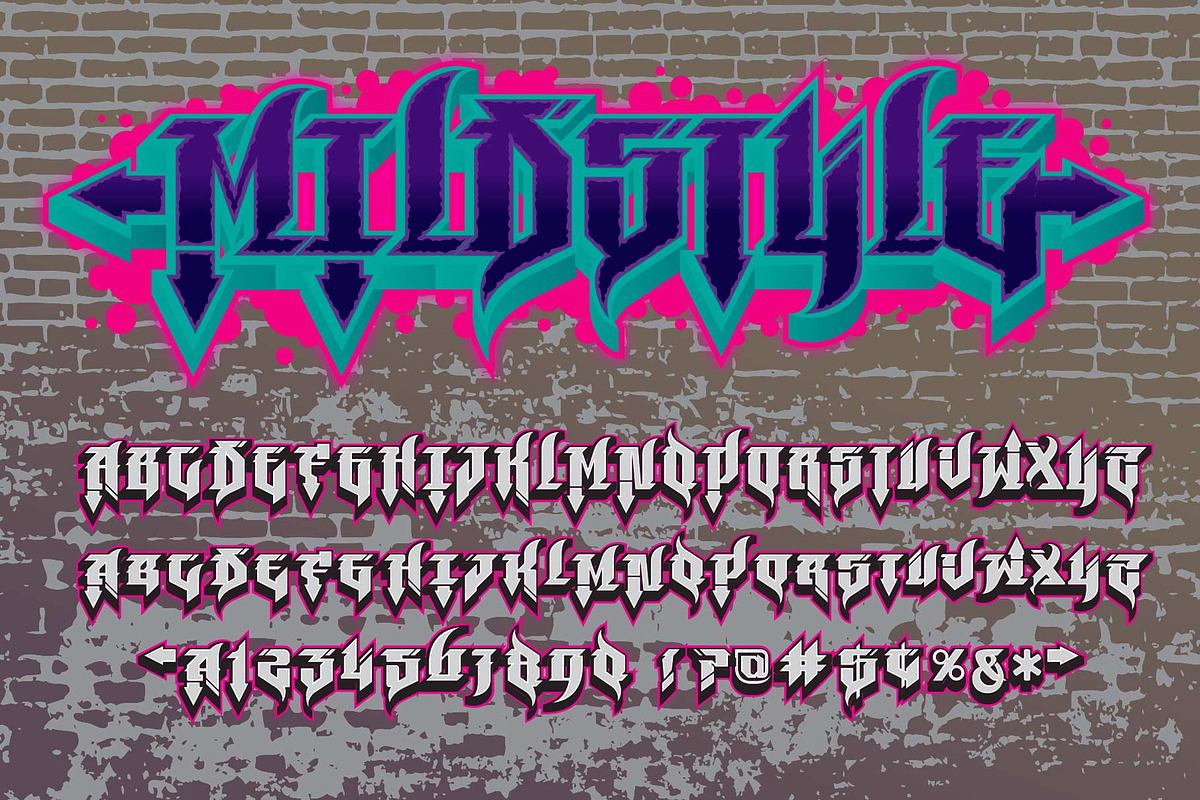
Please note that you must purchase this font for commercial use. You can download MildStyle – Graffiti Fonts for free, strictly for personal testing purposes only. MildStyle is a bold and energetic graffiti font that combines classic street art aesthetics with a cleaner, more controlled flow—perfect for designers who want an urban edge without losing legibility. With its hand-drawn curves, stylish swashes, and layered personality, MildStyle Graffiti Fonts Free Download is ideal for streetwear branding, hip-hop album covers, skate culture graphics, posters, stickers, and edgy digital content.
This typeface blends attitude and versatility, offering a softer graffiti style that’s still full of urban flavor. It includes uppercase and lowercase letters, numerals, punctuation, and multilingual support, ensuring creative flexibility across many platforms.
Whether you’re designing for youth culture, music, or underground art scenes, MildStyle brings rhythm, movement, and cool confidence.